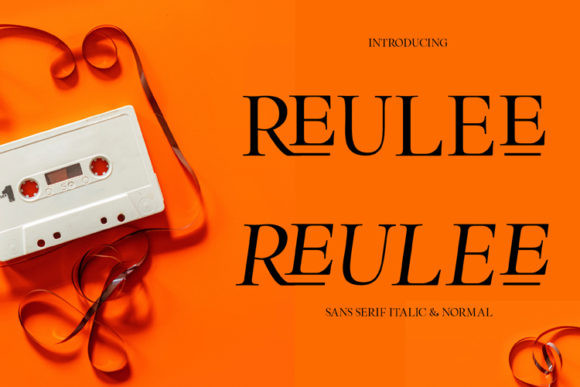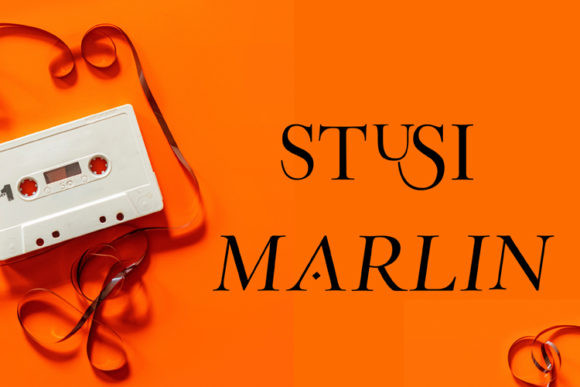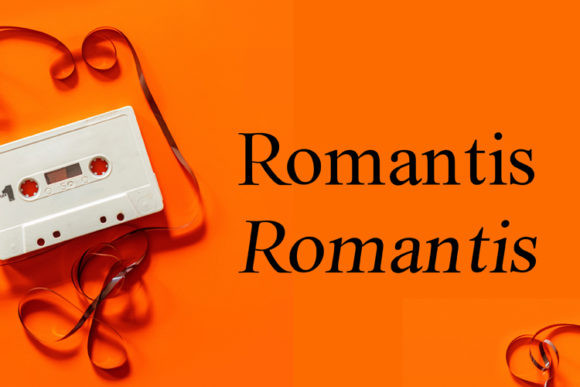
Reulee Font
Reulee is a display font that features elements of both classic styles and minimalist influences, providing beautiful and elegant letters. It includes ligatures and additional characters, which will give any design a distinct editorial feel.